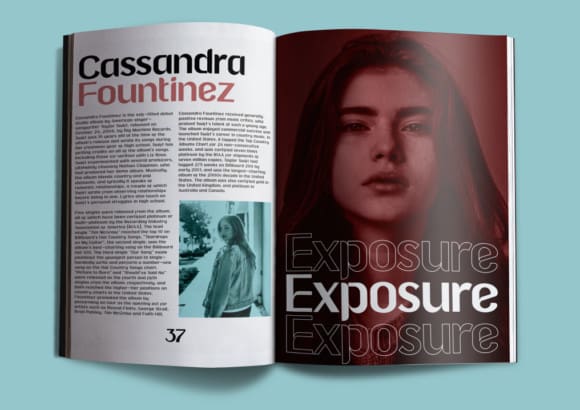
Aptumi Font
Aptumi Font is a modern typeface with beauty in every single letter. Aptumi allows you to create beautiful headlines, logos, and titles in just minutes.